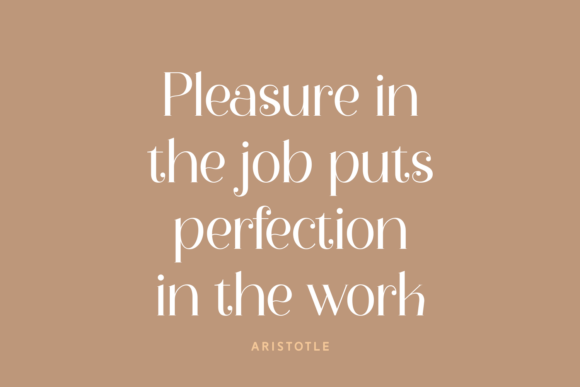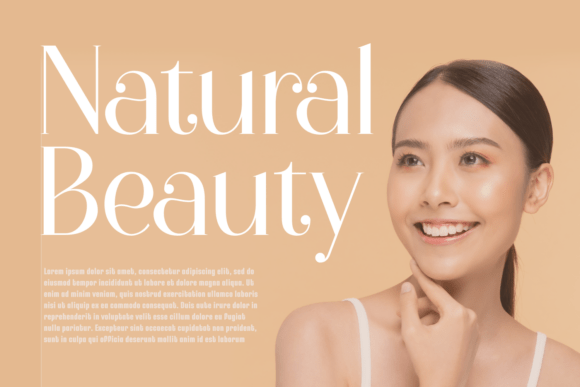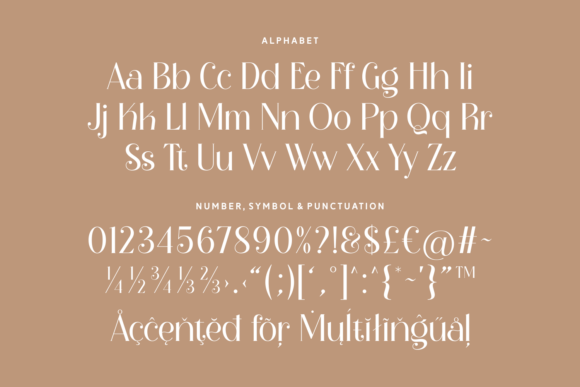
Introduction to Shika Font
As a designer, you’ve probably found yourself stuck in a sea of generic fonts, searching for that perfect combination of elegance and sophistication to elevate your creative project. It’s that moment when you stumble upon a game-changer – a font that exudes confidence and poise, setting your design apart from the rest. For many, that moment came with the discovery of the Shika Font.
With its sleek and feminine modern serif design, the Shika Font is a treasure trove of refined curves and contemporary edge, making it an ideal choice for beauty branding, fashion editorials, and luxurious packaging. Its clean structure, elevated by high-contrast strokes and playful ball terminals, adds a touch of sophistication to any project. Whether you’re working on a high-end design or a simple free download, the Shika Font is a valuable resource that’s sure to leave a lasting impression.
Key Features of Shika Font
- High-quality design: This font features a unique, high-quality design that can be used for various creative projects.
- Transparent background: Shika Font comes with a transparent background, allowing designers to easily integrate it into their designs.
- Resolution: Shika Font is designed to be resolution-independent, ensuring that it looks great at any size or resolution.
- Unique characteristics: This font features a distinctive and elegant design, making it perfect for creative projects that require a unique touch.
Honest Review: Shika Font
I recently stumbled upon the Shika Font while searching for a design resource for a creative project. I must say, it’s been a pleasant experience working with this font.
- Unique style**: Shika Font offers a distinctive and modern design that can add a touch of sophistication to any project.
- High quality**: The font is available in high-resolution formats, making it suitable for both digital and print-based designs.
- Limited customization**: While the font is aesthetically pleasing, it may not offer the level of customization that some designers require.
- No transparent background**: If you’re looking for a font with a transparent background, Shika Font may not be the best option.
Overall, I’m quite impressed with the Shika Font. Its unique style and high quality make it a valuable addition to any design resource collection. However, designers who require more customization options or a transparent background may want to explore other options.
The Shika Font is versatile and can be used in a variety of creative projects, including logos, posters, and business cards. Its high-quality design and transparent background make it an ideal choice for designers looking for a unique and professional font.
To get the most out of the Shika Font, experiment with different font sizes, colors, and styles. The font’s transparent background allows for creative flexibility, making it easy to combine with other design elements. With practice, you can unlock the full potential of the Shika Font and elevate your design projects to the next level.